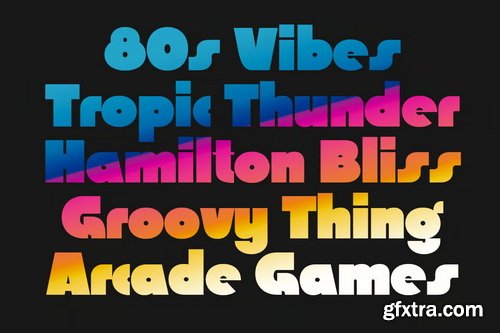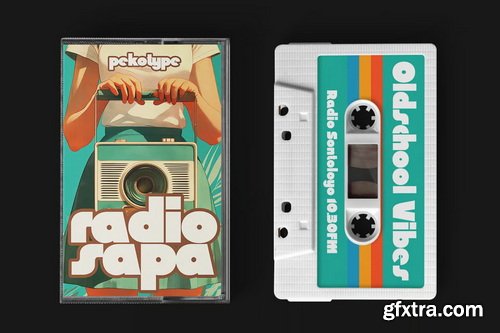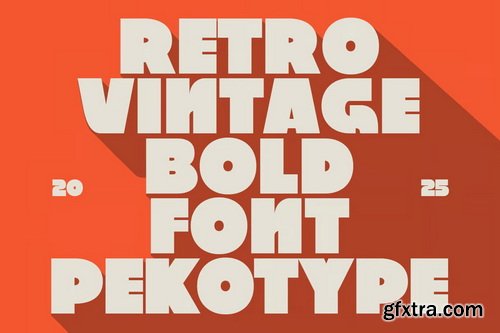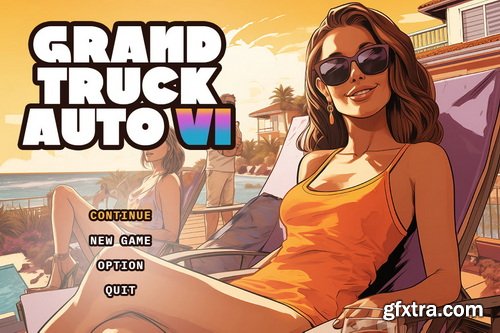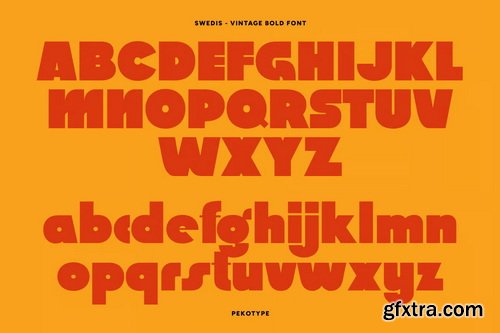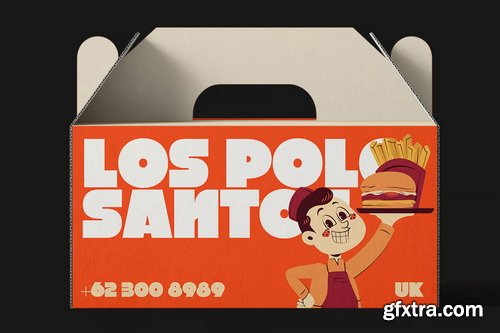
Swedis - Vintage Bold Font
Introducing SWEDIS, a bold and nostalgic display typeface that brings the power of the 80s into the modern design era. With its super bold, fat, and blocky letterforms, SWEDIS stands loud and proud — perfect for grabbing attention in all the right ways. Inspired by retro aesthetics and revamped for contemporary use, SWEDIS is your go-to font for branding, logos, movie posters, promo materials, and social media graphics. Whether you're designing for a music event or a vintage-inspired product line, SWEDIS delivers bold impact with effortless style.